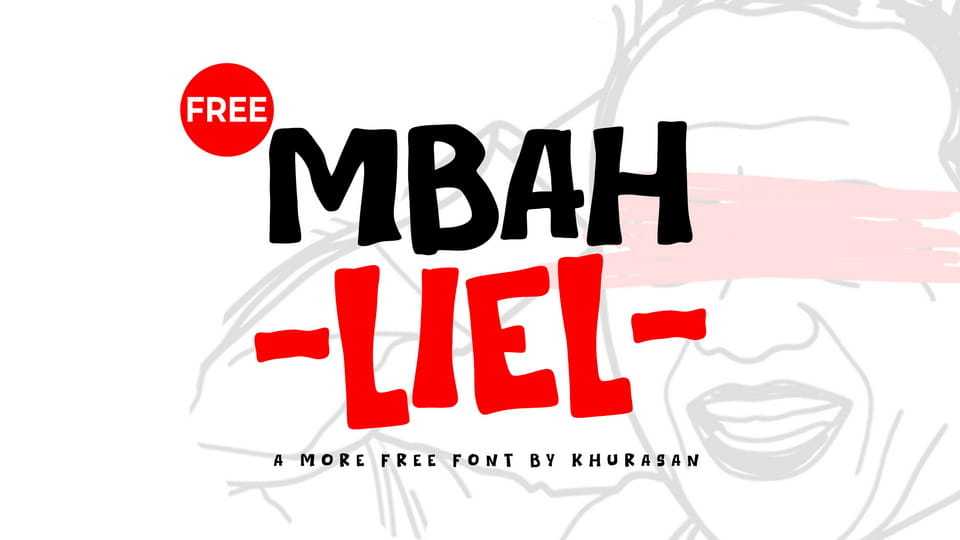
Download Mbah Liel font, a bold, playful display typeface inspired by hand-drawn lettering and expressive shapes. Its irregular forms and slightly rough edges create a fun and spontaneous look